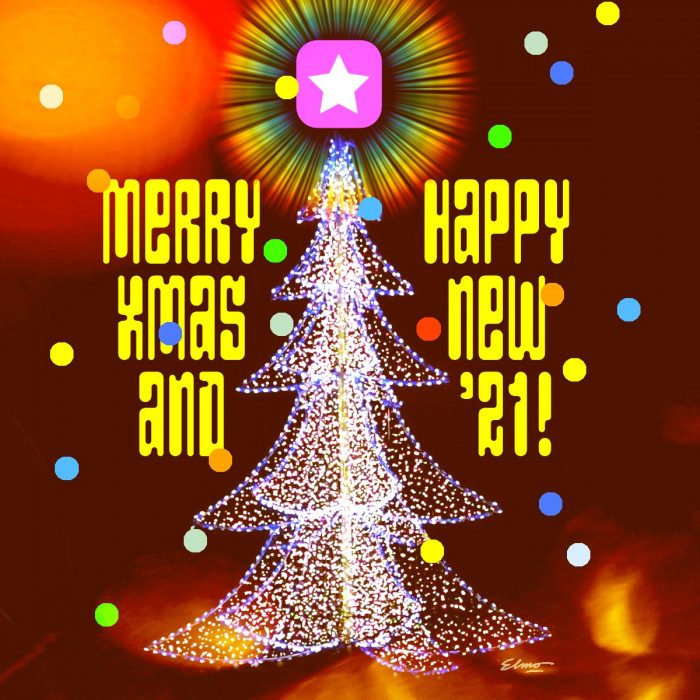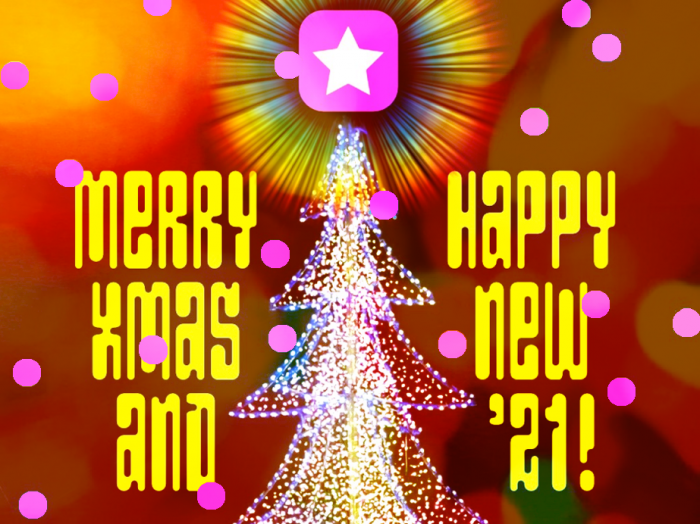
My font for this rare Covid-Xmas. Be careful, be with yours but safely.
The font has a lovely retro air to it. Beautiful holiday design 10/10
another beautiful design, almost reminds me of ferrofluid, or a lava lamp
Wonderful font!